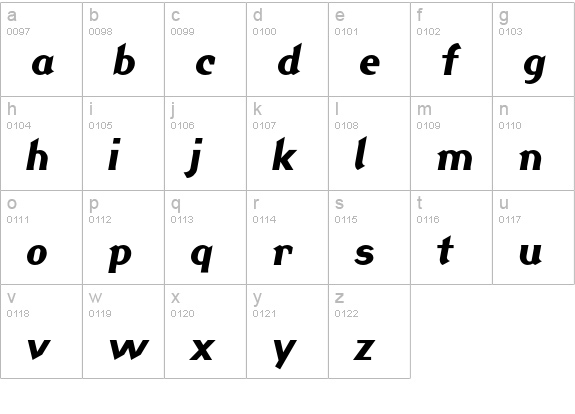
Jackdaw-Italic Font Details
Jackdaw-Italic is a distinctive, italic variant in the Jackdaw typeface family \xE2\x80\x94 well suited to design and typography projects.
Introducing Jackdaw-Italic font, a captivating and versatile typeface that will elevate your designs to new heights. With its sleek and elegant curves, Jackdaw-Italic exudes a sense of sophistication and modernity, making it the perfect choice for any project. Whether you're designing a logo, creating a poster, or crafting a beautiful website, Jackdaw-Italic will effortlessly add a touch of elegance and professionalism. Its unique italic style adds a sense of fluidity and movement, making your text appear dynamic and visually engaging. But what sets Jackdaw-Italic font apart from the rest is that it is not only stunningly beautiful, but it is also completely free. That's right, you can download this exceptional font without spending a dime. Thanks to FontsMarket.com, it is freely available for download, allowing you to bring your creative vision to life without any financial constraints. Don't miss out on the opportunity to enhance your designs with Jackdaw-Italic font. Its versatility, elegance, and the fact that it is free make it a must-have for any designer or creative professional. Download it now from FontsMarket.com and watch your designs come to life with a touch of sophistication and style.